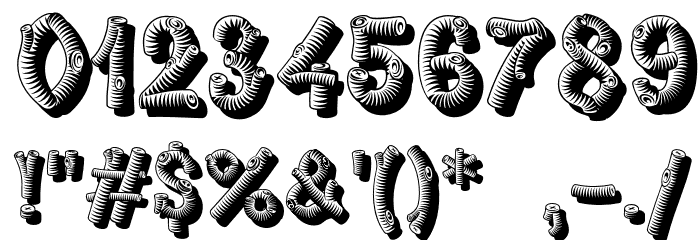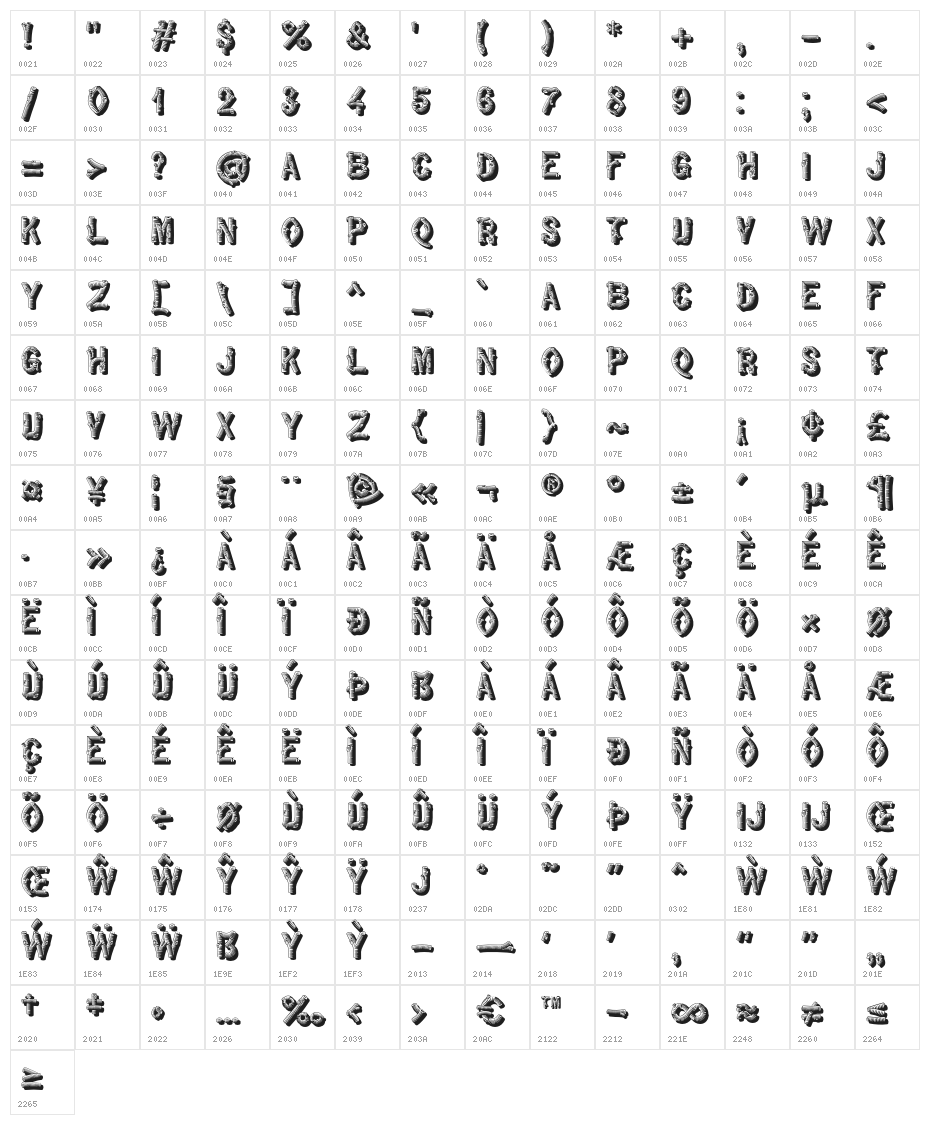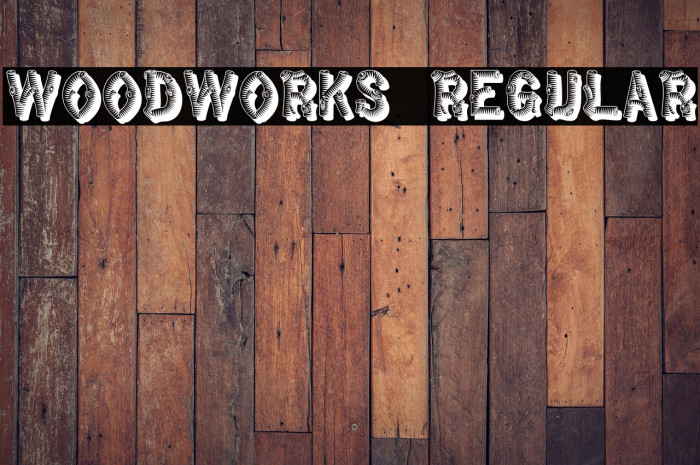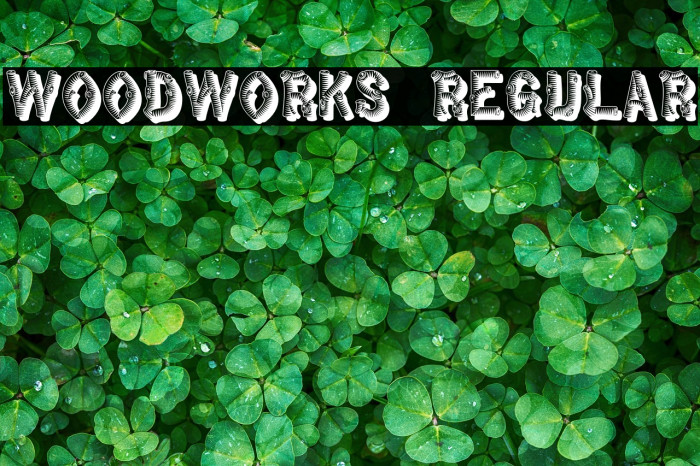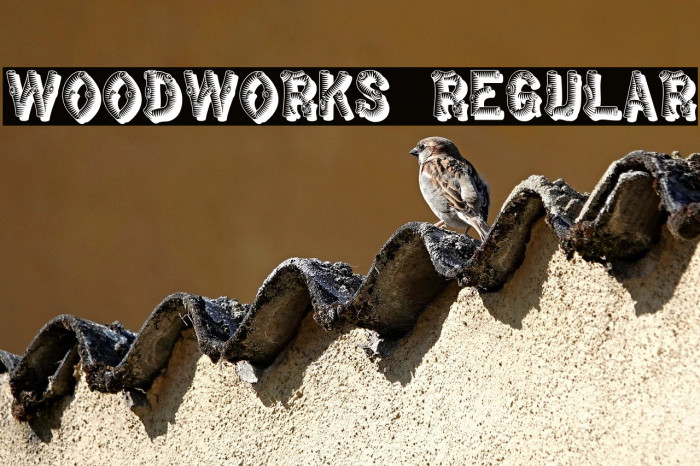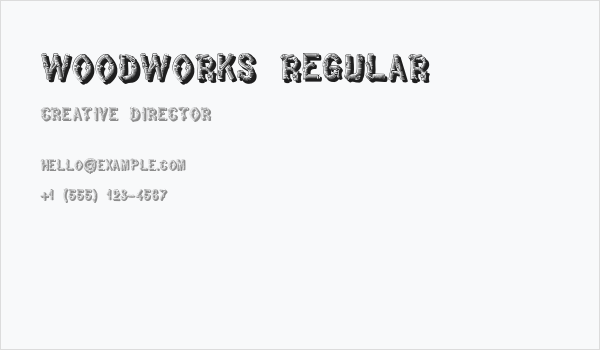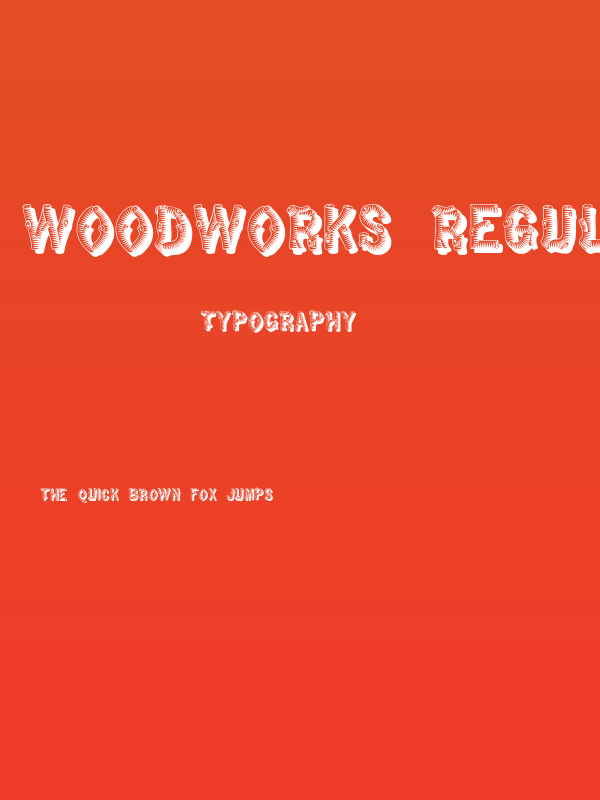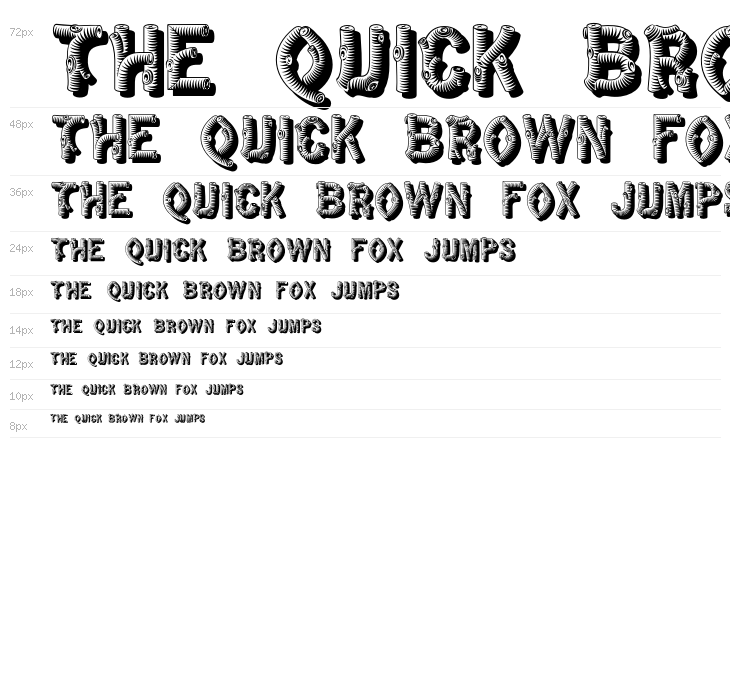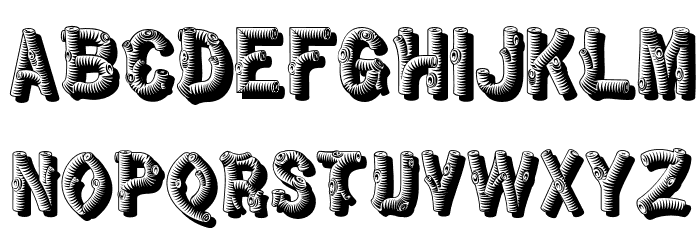
WoodWorks Regular Font
WoodWorks Regular Description
This font features a bold, decorative style with a three-dimensional appearance reminiscent of carved wood. Each character is intricately designed with a textured pattern that adds depth and visual interest. The letters are robust and have a playful yet sophisticated feel, making them stand out in any design. The font includes both uppercase and lowercase letters, numbers, and a variety of special characters, all maintaining the same elaborate design. Its unique style is perfect for projects that require a touch of creativity and flair.
| Proposed Projects | Ideal for posters, signage, branding, and any project needing a distinctive, artistic touch. |